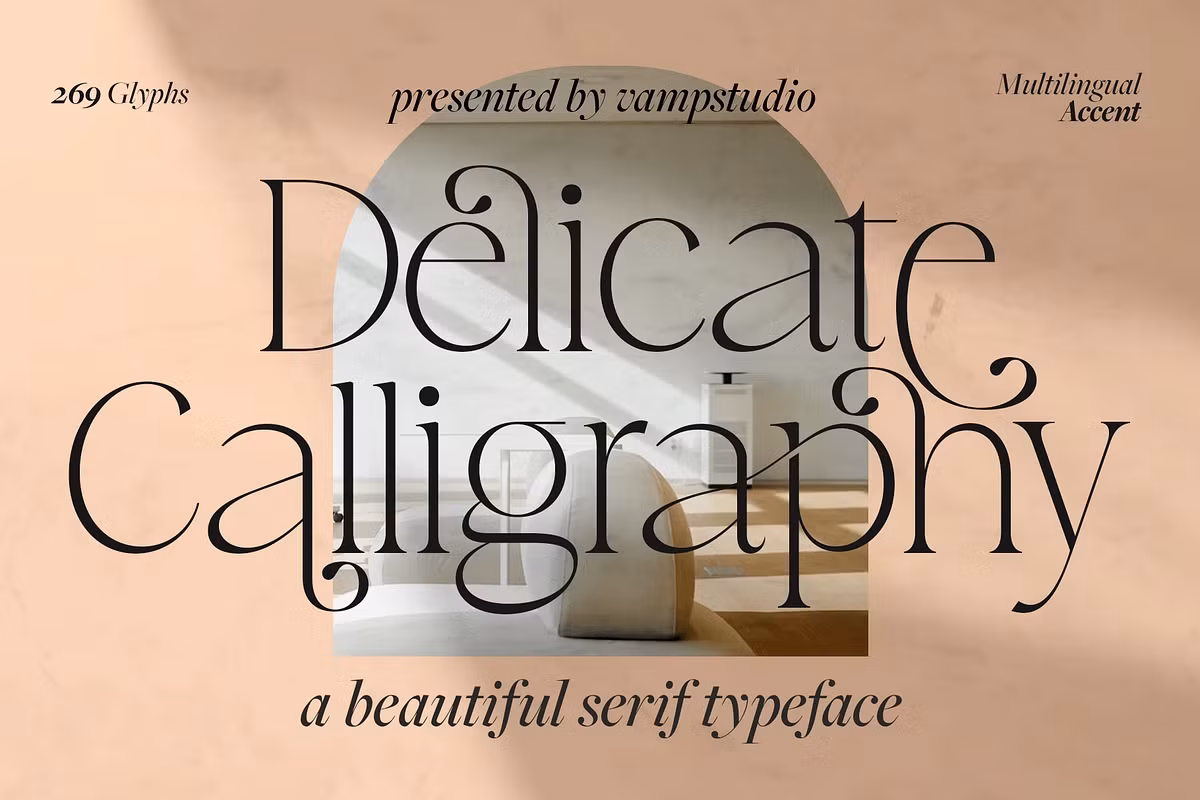
Delicate Calligraphy Elegant Serif Free Download
Delicate Calligraphy Elegant Serif Font Free Download is a graceful and sophisticated typeface that combines classic serif elegance with the softness of calligraphic touches. Ideal for wedding invitations, luxury branding, editorial spreads, and high-end packaging, this font adds a romantic, refined charm to any design.
Delicate Calligraphy Elegant Serif Font Free Download features fine curves, elegant ligatures, and a timeless style that enhances both digital and print layouts. Whether you're creating a boutique logo or a stylish magazine headline, this font brings an air of beauty and distinction. Download it today and elevate your typography with delicate sophistication.